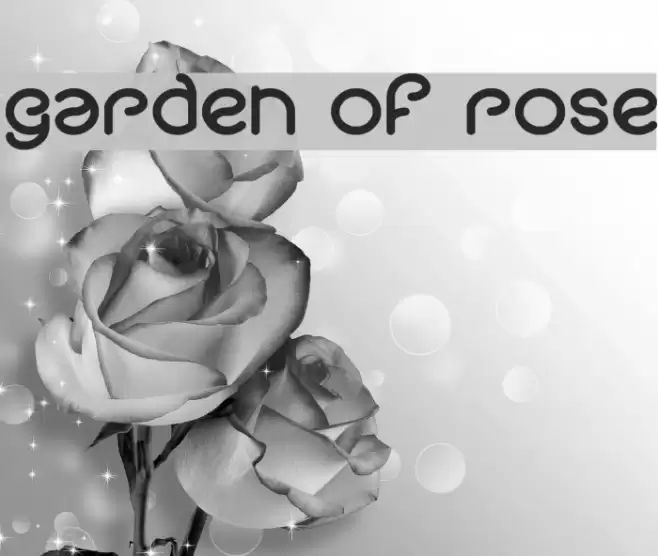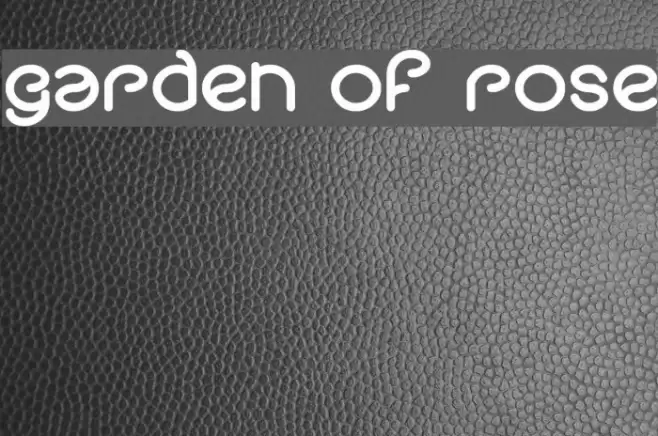
garden of rose Font
garden of rose Description
This playful and whimsical font features rounded, flowing characters with a unique, almost hand-drawn appearance. The uppercase and lowercase letters exhibit a consistent looped style, creating a sense of movement and fluidity. The numbers and special characters maintain this playful aesthetic, making the font suitable for creative and informal designs. The overall look is approachable and friendly, with a touch of quirkiness that adds character to any project.
A playful, rounded font with a whimsical, hand-drawn style from Uncategorized fonts.
- Proposed Projects: Ideal for children's books, playful branding, greeting cards, and creative posters.
- Overall Style: Whimsical, Playful
- Use Case: Logos, Posters, Invitations